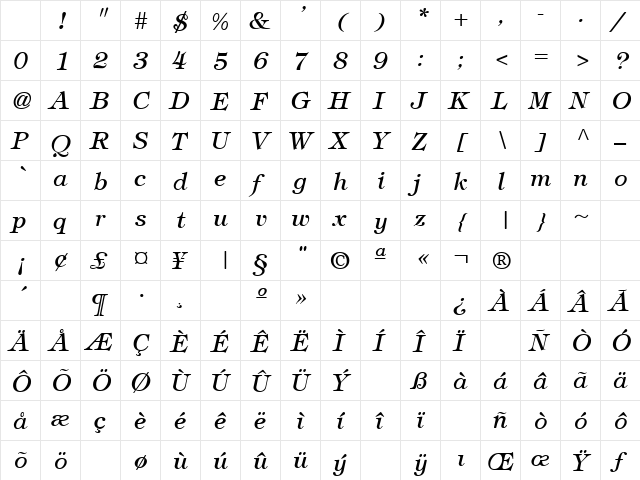
Complete Tiffey Italic glyph index. Displaying only characters natively supported by Tiffey Italic font.
Tiffey is a composed and adaptable typeface that performs quietly and consistently across a wide range of design contexts. The slanted form adds forward momentum and visual energy.